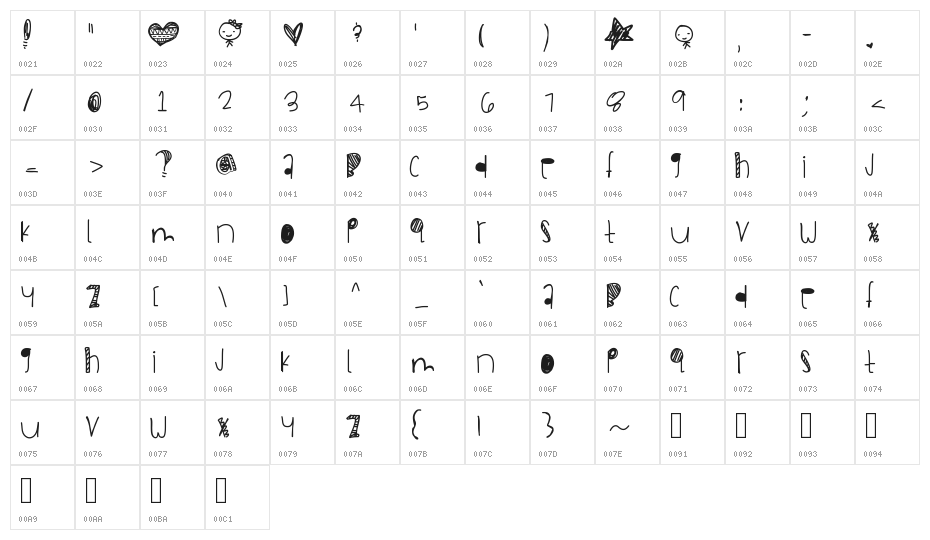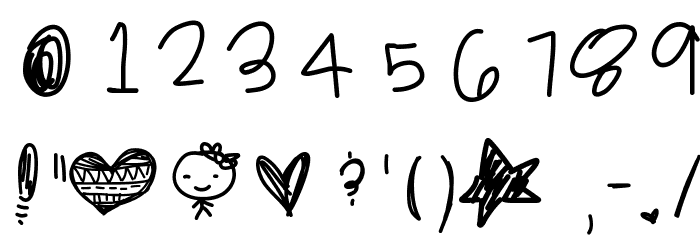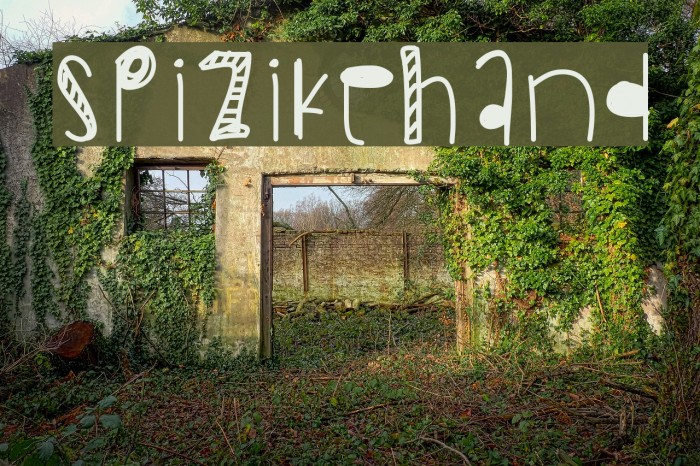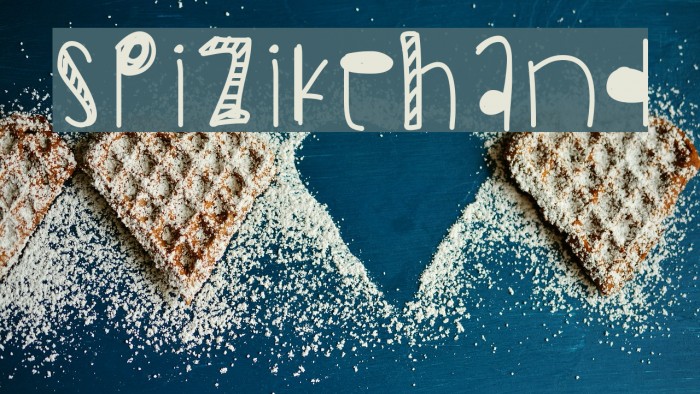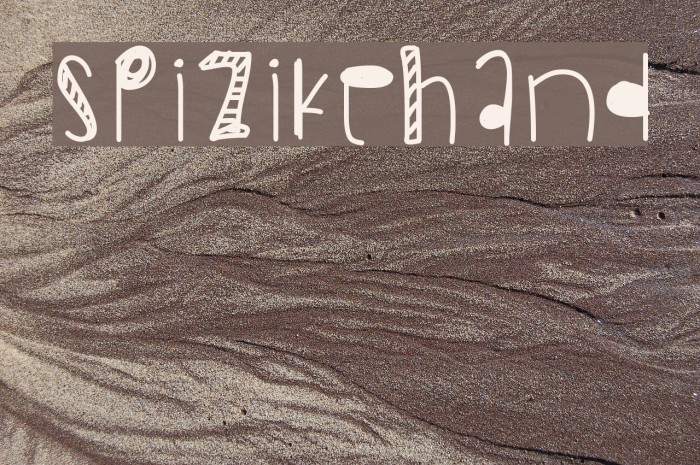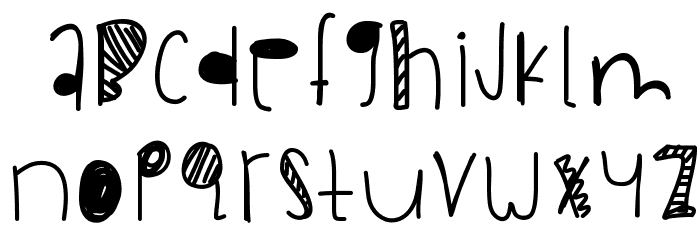
SpizikeHand Font
SpizikeHand Description
This playful and whimsical font features a hand-drawn style with a mix of bold and thin strokes, creating a lively and energetic appearance. The letters are characterized by their irregular shapes and quirky details, such as stripes and dots, giving each character a unique personality. The numbers and special characters follow the same playful theme, with some incorporating additional decorative elements like hearts and stars. This font exudes a sense of fun and creativity, making it ideal for projects that aim to capture a youthful and imaginative spirit.